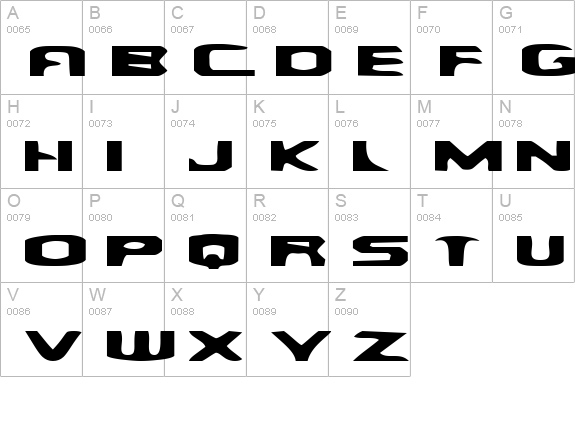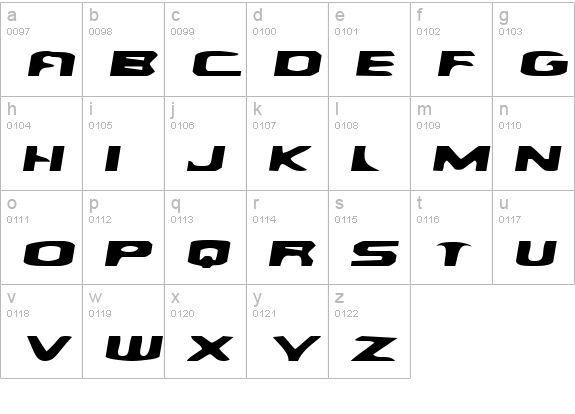
Yellow Dog Font Details
Introducing the charming and playful Yellow Dog font, a delightful typeface that exudes warmth and friendliness. With its bold strokes and cheerful personality, Yellow Dog is perfect for adding a touch of whimsy to your projects. This versatile font is suitable for a wide range of design applications, from branding to packaging to social media graphics. Best of all, Yellow Dog is available for free download at FontsMarket.com, making it easily accessible for designers and creatives looking to add a fun and unique element to their work. Whether you're working on a poster, greeting card, logo, or website, Yellow Dog is sure to bring a smile to your audience's face. Download this charming font today and let your creativity shine!